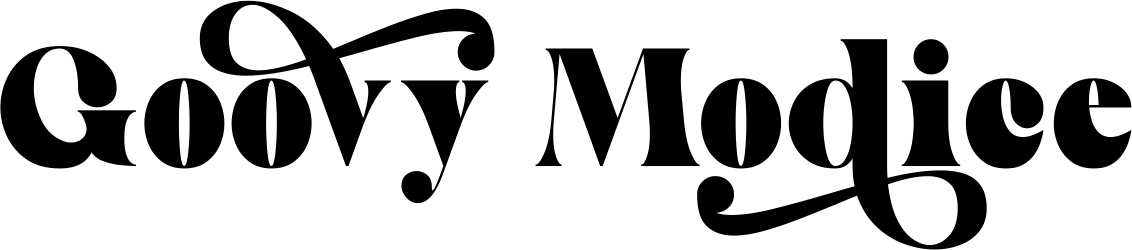
Goovy Modice Font
If you are looking for a new idea for your content, then why not try a different font. Goovy Modice is a groovy font and it is a great example for you to try there are so many areas that you can use this font like children’s storybooks, cartoons, birthday cards, T-shirts, book covers.
This font comes with an extraordinary collection of characters that contain both the uppercase and lowercase of the alphabet, the numbers, and the punctuation marks.